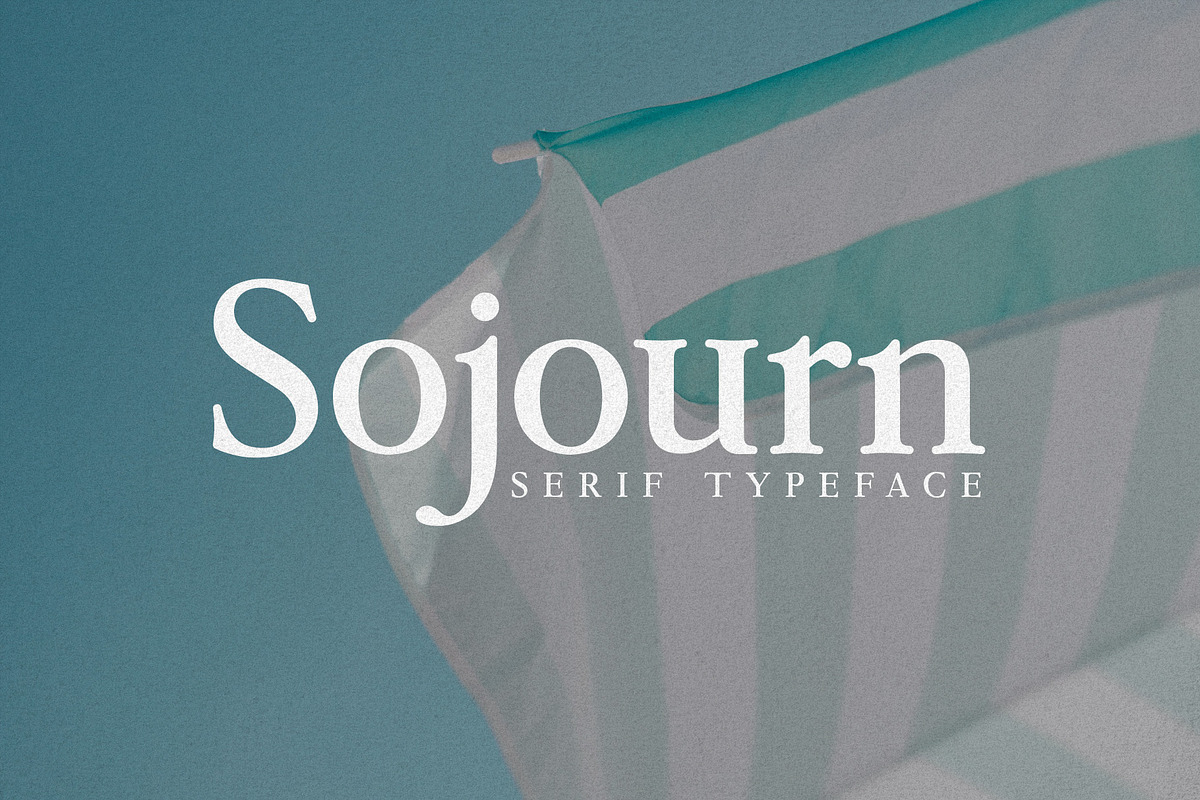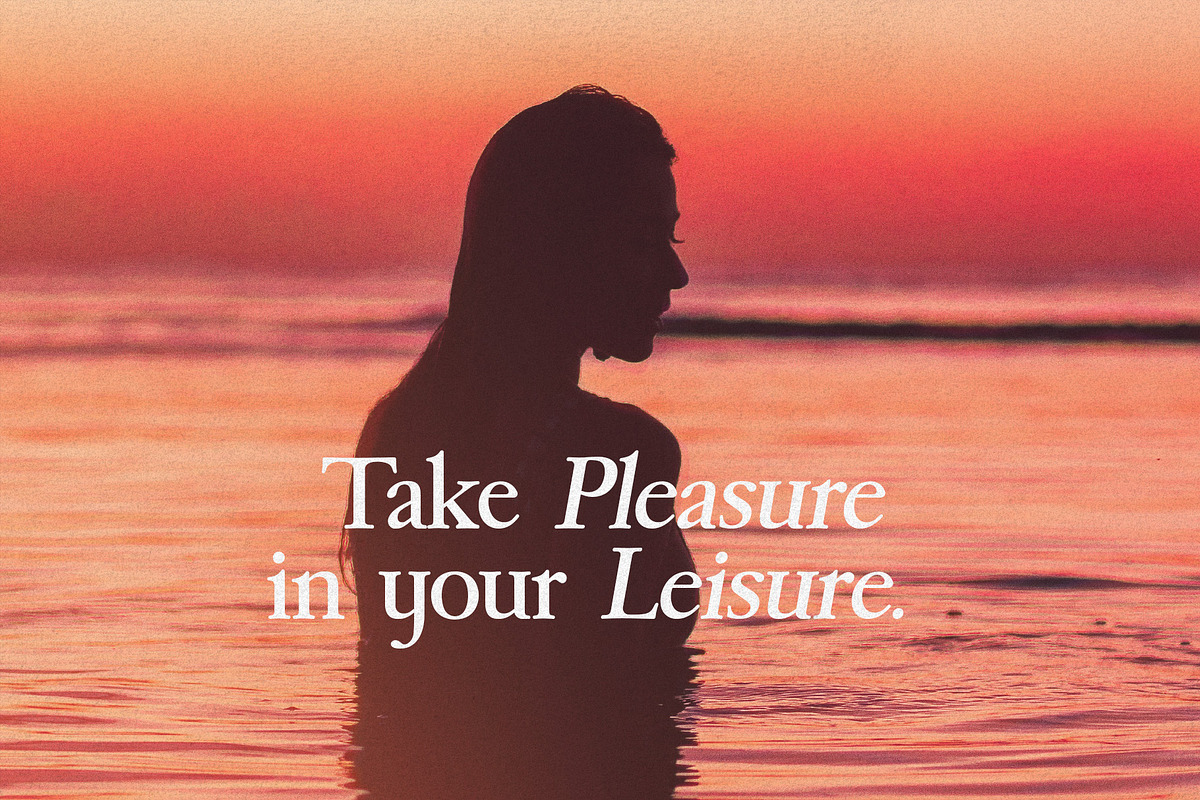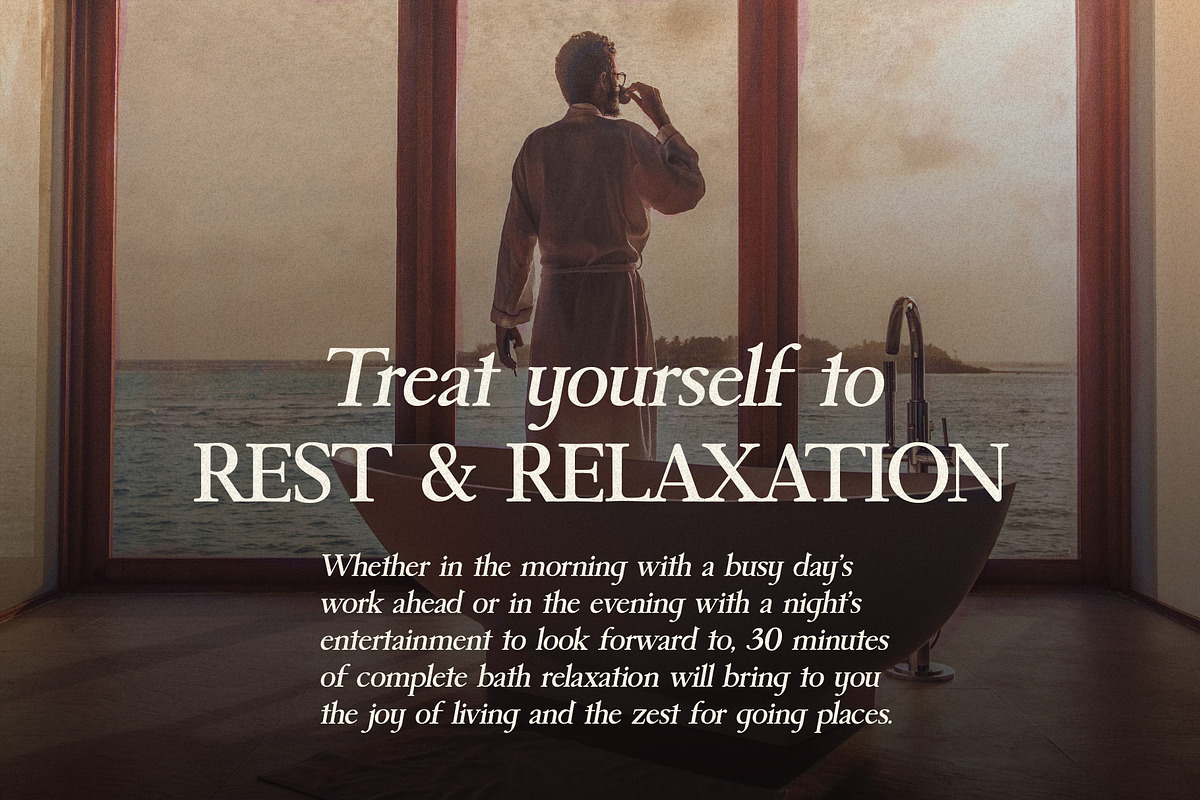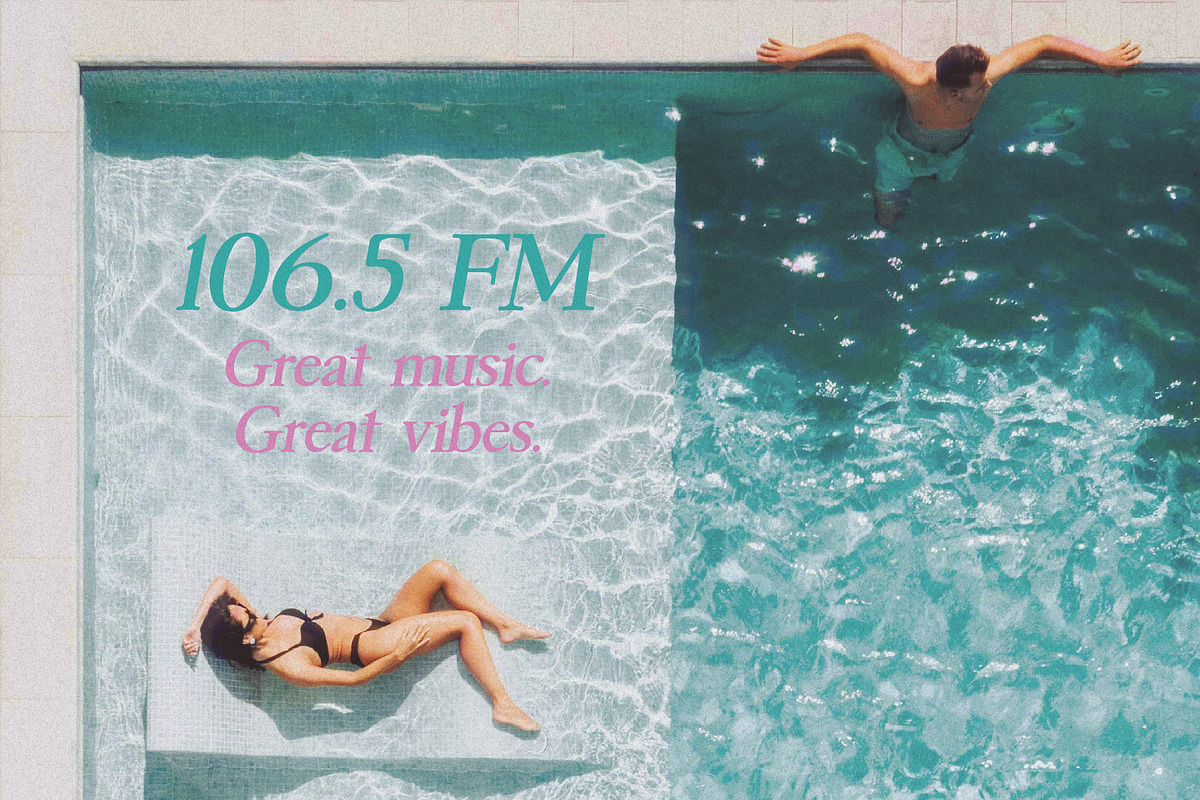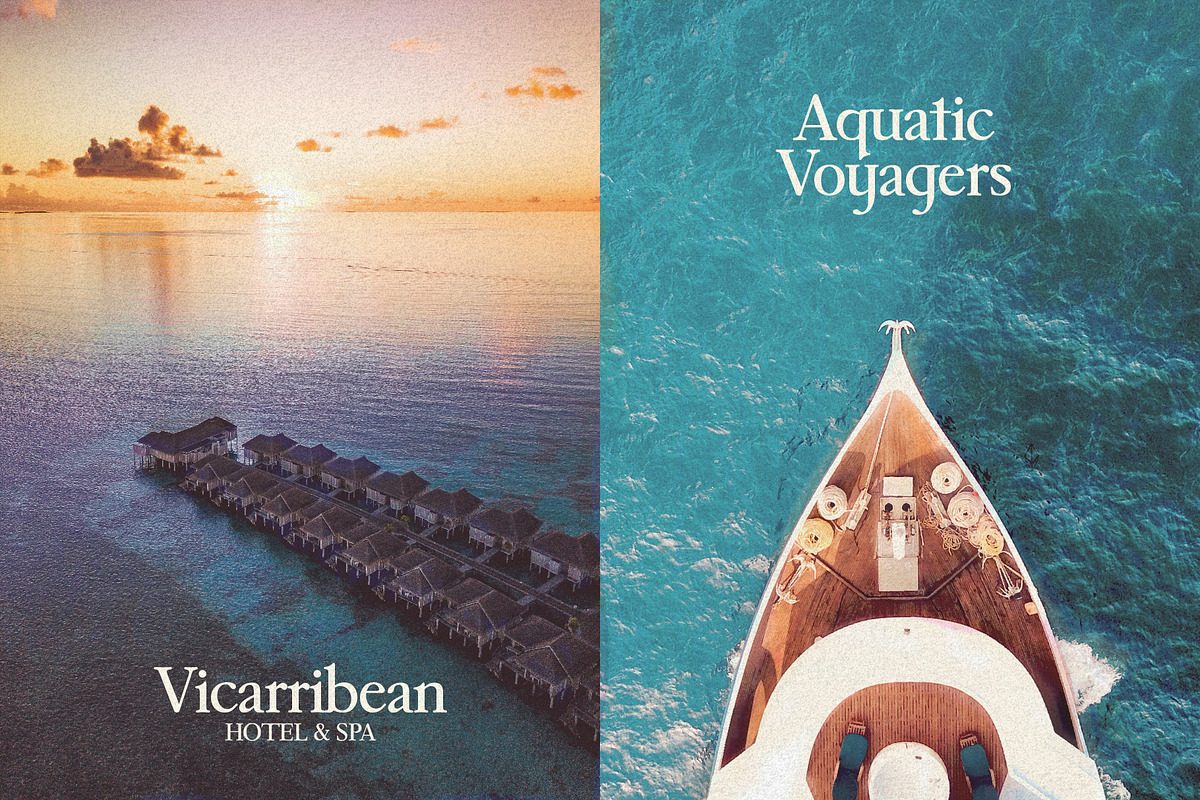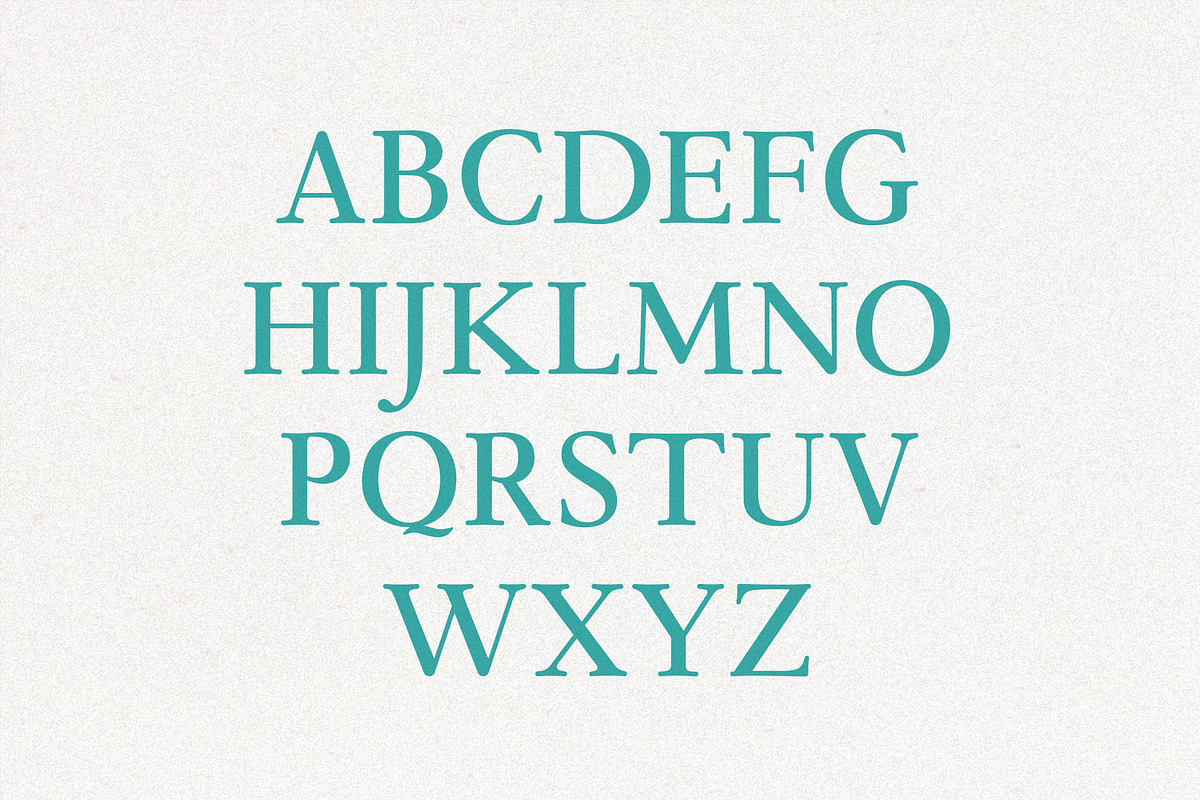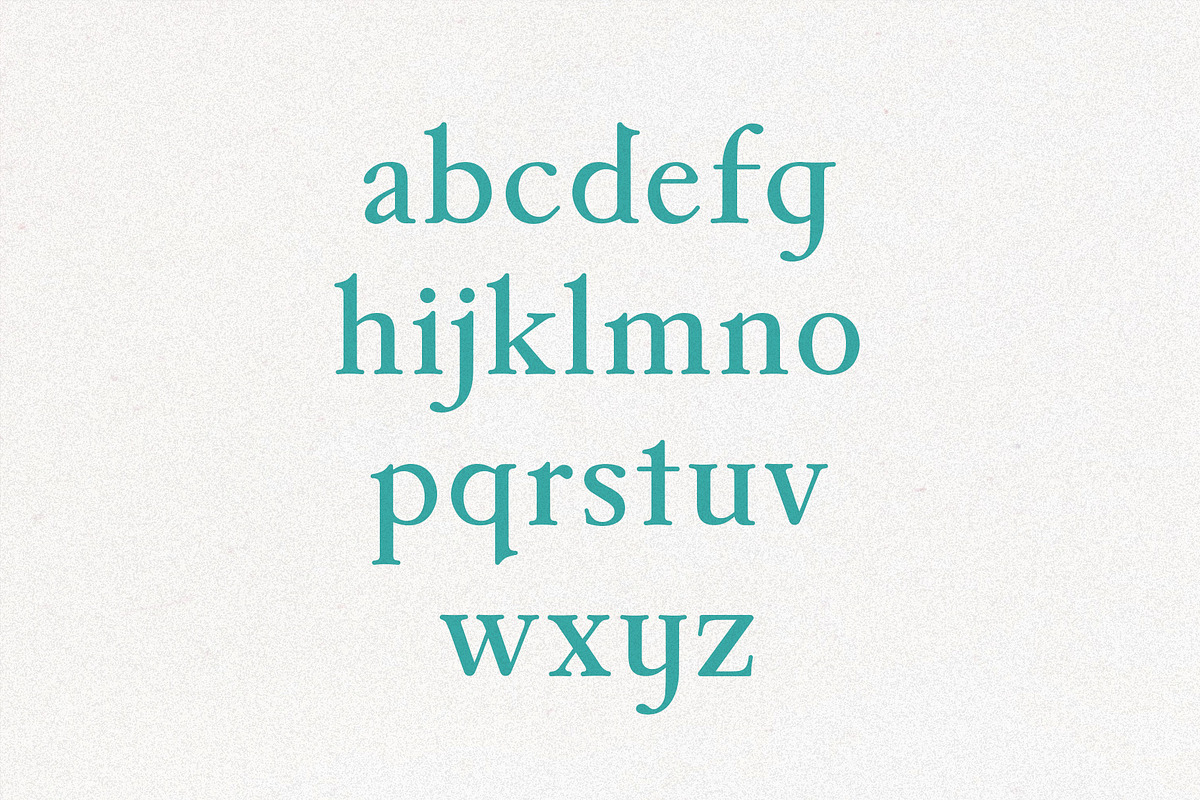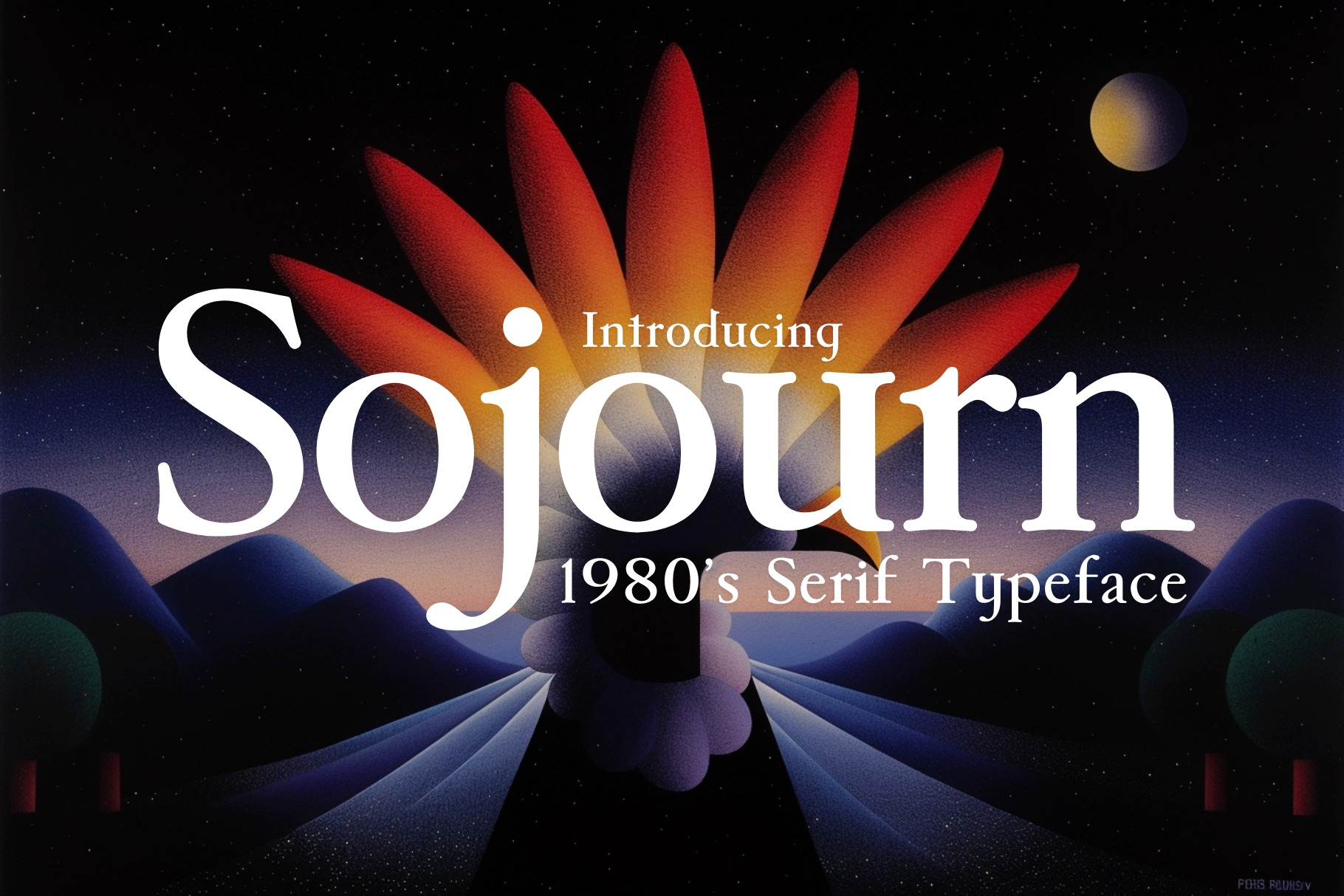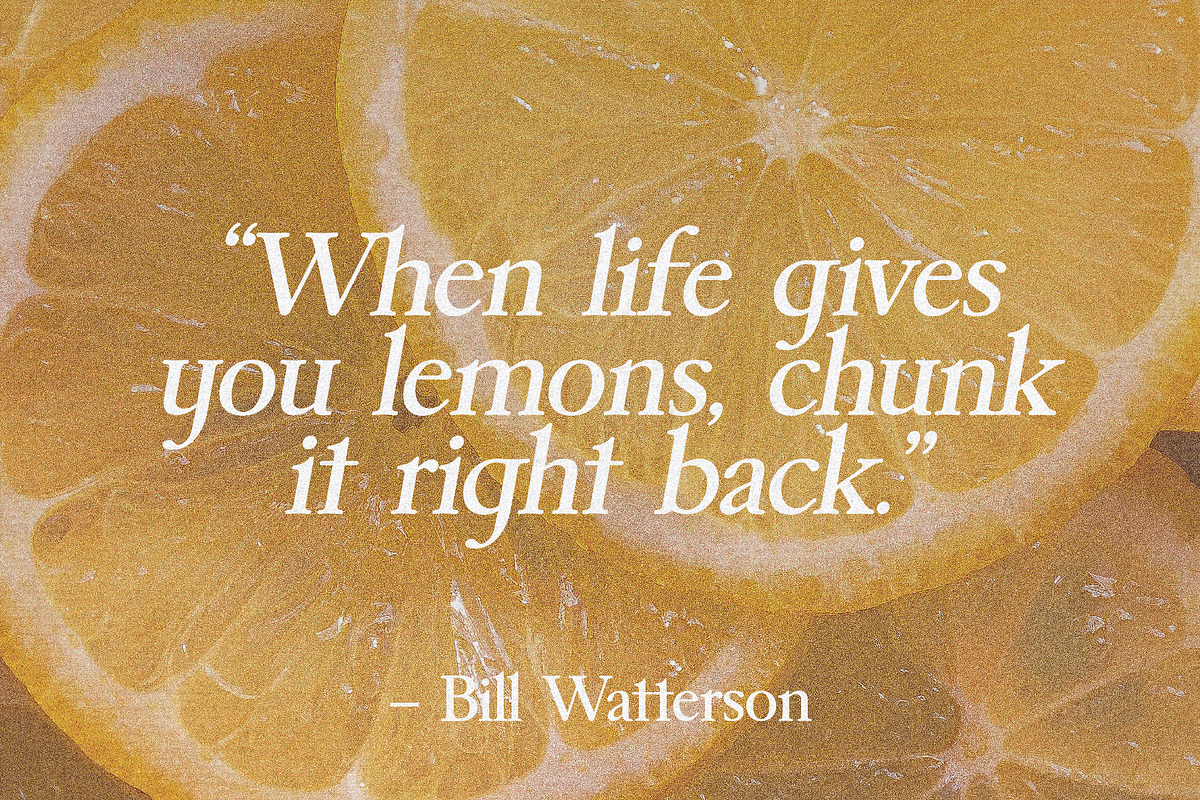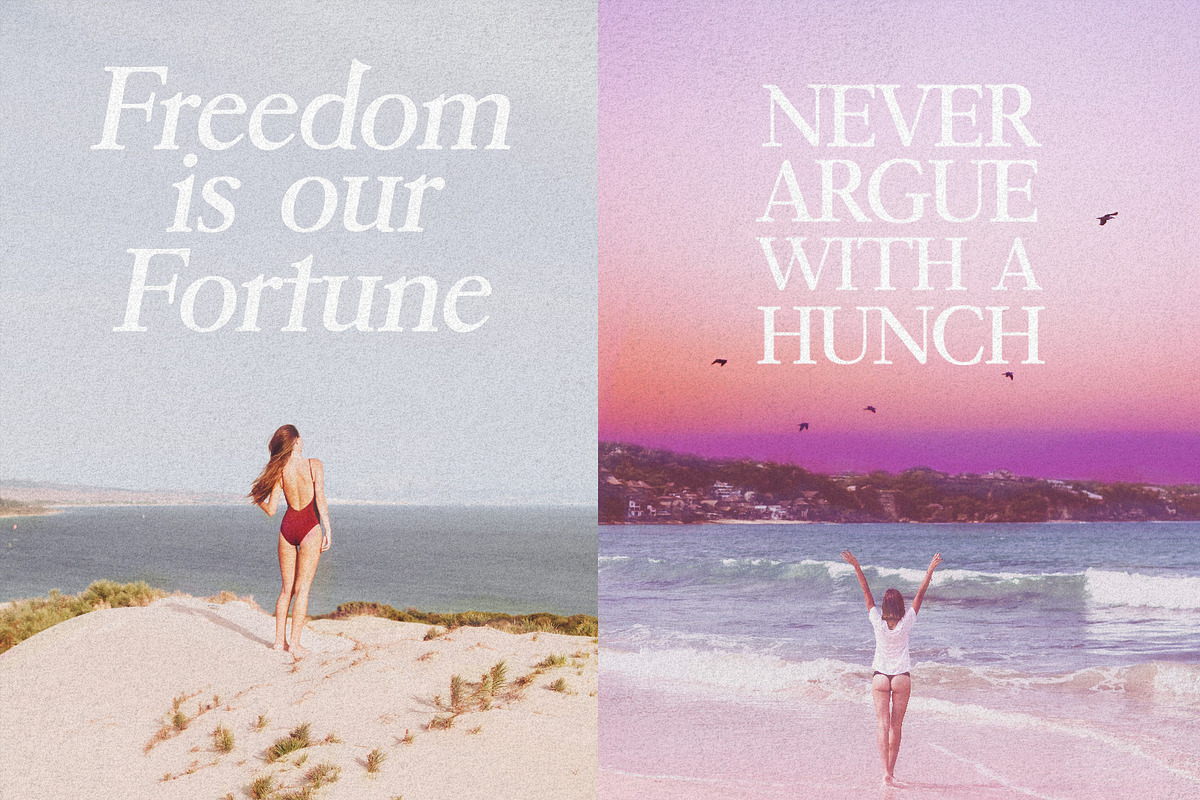
Sojourn - 1980s Serif Typeface
Say hello to Sojourn! An eighties inspired serif typeface.
Layered, type-driven design inspired by 1980s advertising is on the rise. Sojourn will help your creative projects come alive and create eye-catching designs. Just like the famous 1980s advertisements by Apple, which pioneered the look with its launch campaign for the 1984 Macintosh.
Design Advice: The trick behind this style is to set tracking to a negative number (Adobe Photoshop or Illustrator), depending on the vibe your wish to go for. This will make the letters tighter together. But always make sure the text is legible.
The font comes in in two versions regular and italic. To give you an idea of the font's vibe, check out the preview photos.